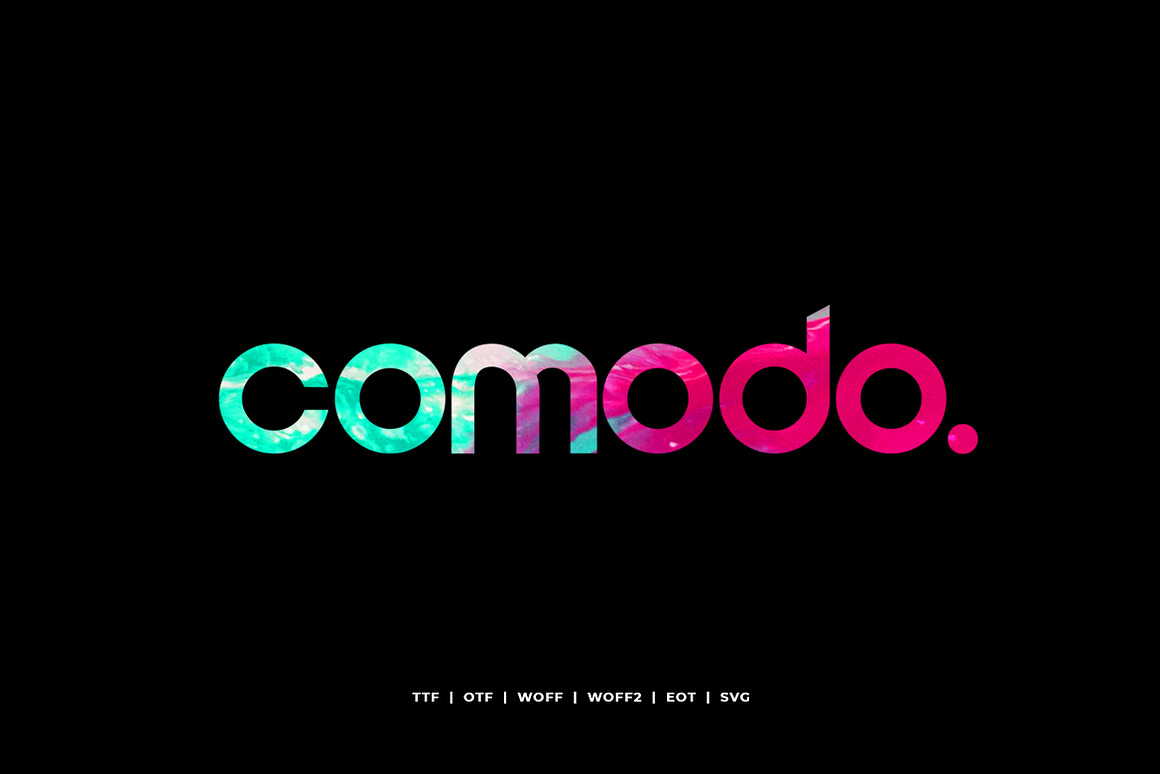
Comodo - Display Typeface
Comodo Display Typeface is perfect for magazine headlines, editorial layouts, luxury brand campaigns, contemporary art exhibitions, sophisticated poster designs, premium packaging, high-end fashion publications, modern corporate presentations, and distinctive advertising materials.
What makes Comodo Display Typeface exciting is its masterful combination of contemporary sophistication with commanding visual presence that creates immediate impact while maintaining exceptional readability at large sizes. The font features carefully refined letterforms with distinctive character details that demand attention without sacrificing elegance or professional credibility. Its sophisticated design philosophy balances boldness with refinement, making it perfect for brands that need typography with both authority and aesthetic appeal, ensuring memorable visual communication that elevates any design project to premium status.
Comodo Display Typeface family includes comprehensive display weights such as Light, Regular, Medium, Bold, and Black variations, often featuring stylistic alternates and display-optimized character sets. The family may include condensed versions, decorative elements, and specialized glyphs that enhance the font's versatility for headline applications, providing designers with extensive options for creating dynamic typographic hierarchies and compelling visual compositions.